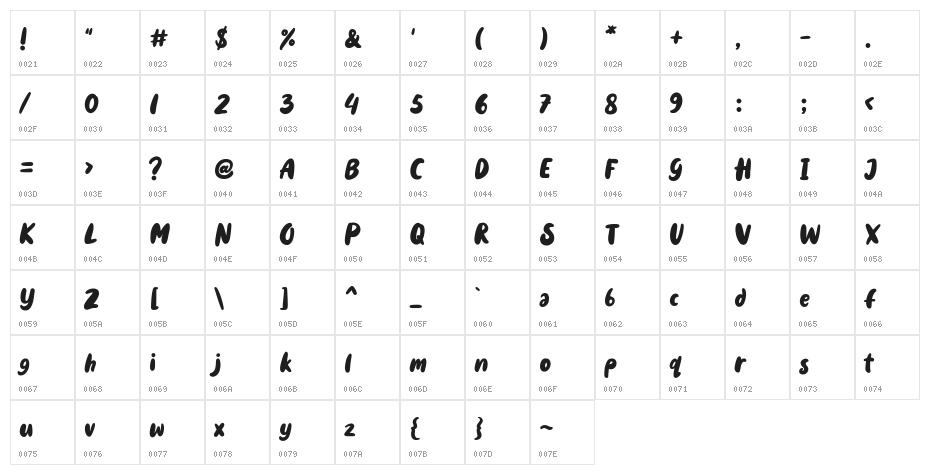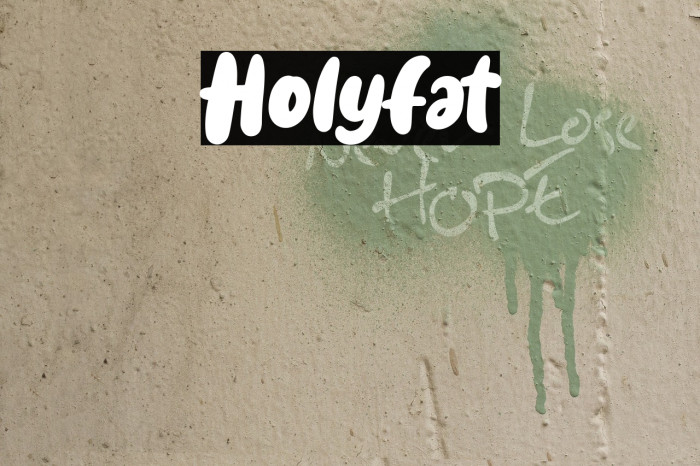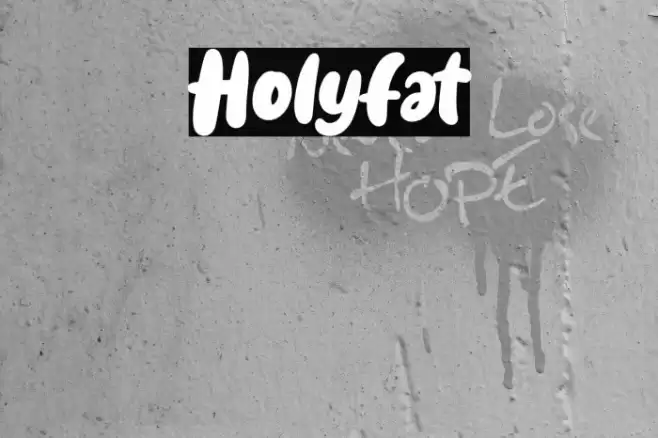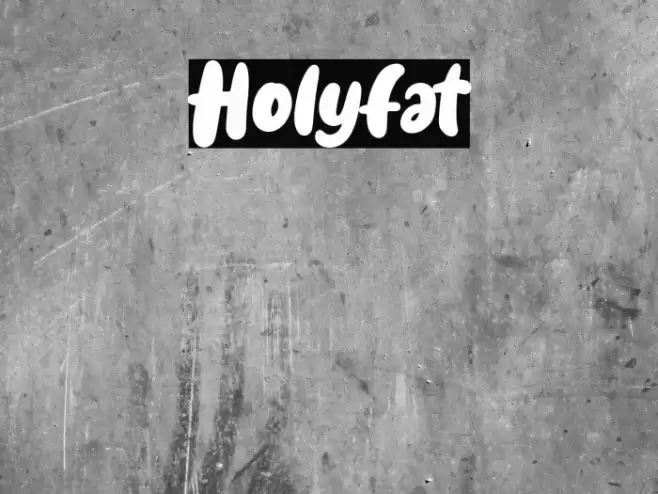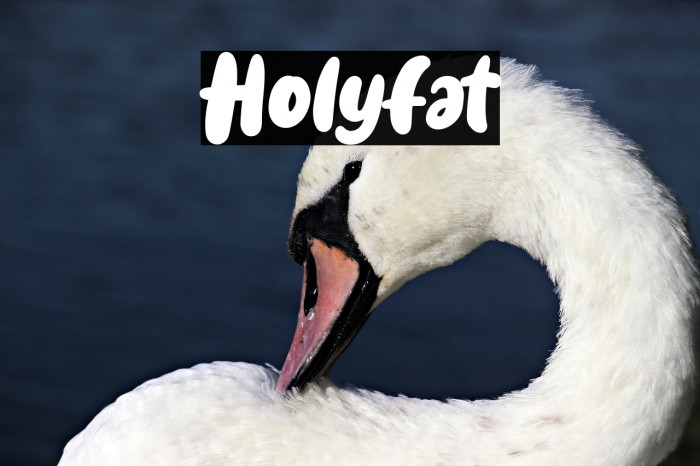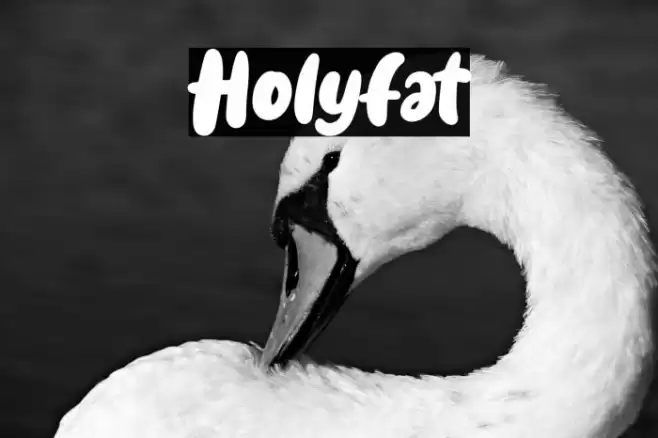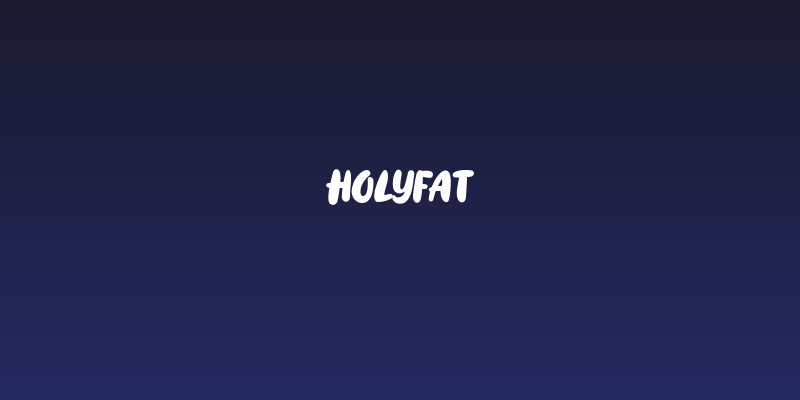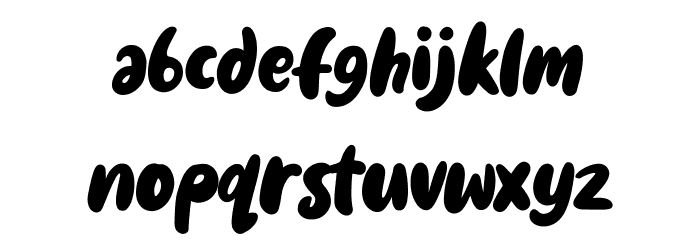
Holyfat Font
Holyfat Description
This font features a bold and playful style with rounded edges and a slightly irregular form, giving it a hand-drawn appearance. The uppercase letters are robust and full-bodied, while the lowercase letters maintain the same playful aesthetic with a slightly more compact form. The numerals are consistent with the overall style, offering a cohesive look across all characters. The special characters are designed to match the bold and rounded theme, ensuring uniformity throughout the font. This font's unique style makes it stand out, ideal for projects that require a fun and engaging visual impact.
| Overall Style | Playful, Hand-drawn |
| Proposed Projects | Ideal for children's books, playful branding, posters, and social media graphics. |